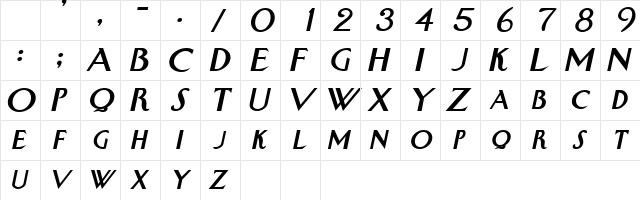
Swan BoldItalic
Design Context for Swan Typeface
Swan offers clean, dependable letterforms without strong stylistic allegiance, making it a practical choice for designers who need flexibility. The slanted form adds forward momentum and visual energy. Its bold stroke weight gives it real presence on the page.
Pro Tip: Try Swan for annotation and caption copy alongside an upright companion — the contrast in angle creates a dynamic but ordered typographic system.